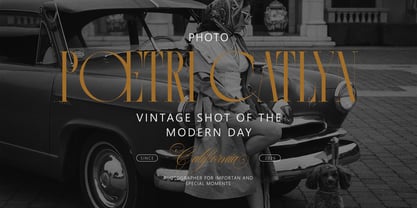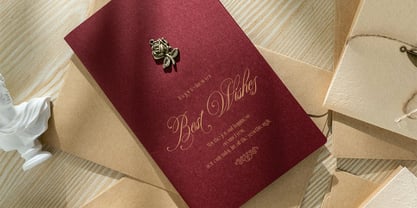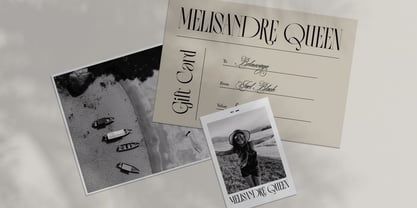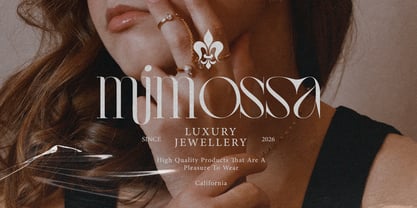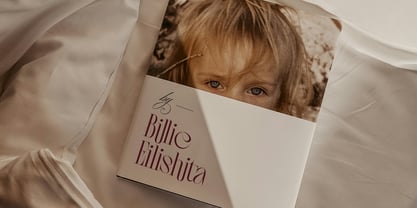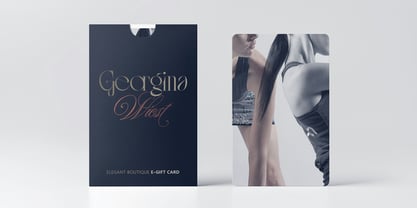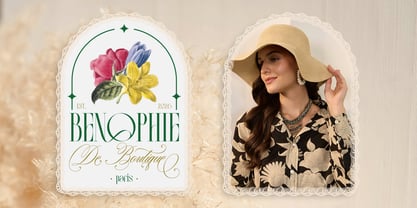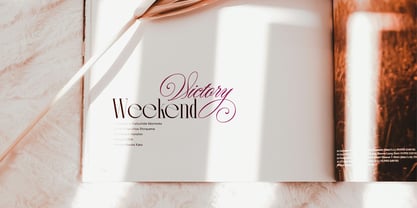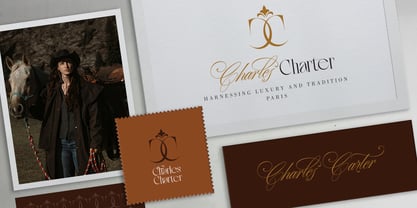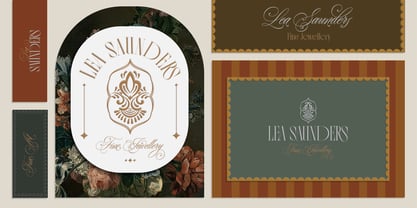
Berniche
by Jamalodin
The Berniche Font Family was designed by Jamaluddin and published by Jamalodin. Berniche contains 2 styles and family package options.
• Berniche Script Regular
• Berniche Display Regular
Berniche Beautiful Duo the best combination of classic and modern, Stylish Serif Display + Elegant Script suitable for branding, wedding invitations, greeting cards, posters, name card, quotes, blog header, logo, fashion, letter, stationery and other projects.
The fonts support ligatures, alternates, and are multilingual. And this Font has given PUA Unicode. so that all the alternate characters can easily be accessed in full by a craftsman or designer.